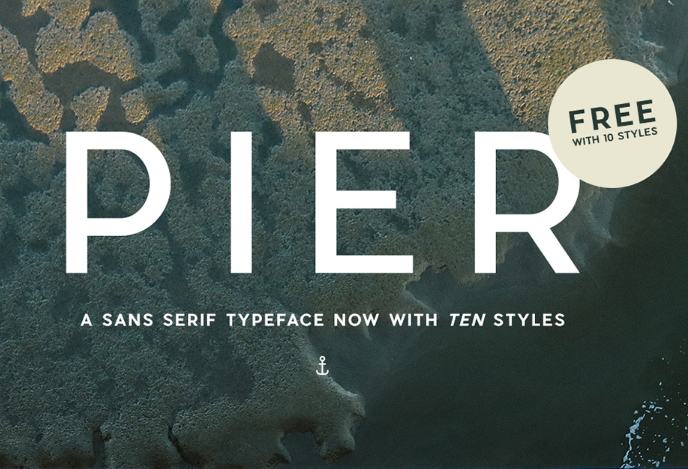
Pier Sans Font Family
As usual, I will introduce to you a new font, if you are implementing a new project, is designed books, or are looking for a collection of fonts, then this will be good for you. Introducing Pier Sans Font Family! A new font families. Pier Sans was designed by Mathieu Desjardins. Pier is a modern and structured typography. The idea was to create a slightly off geometric font that would look as good big or very small. It was made to fit your everyday designs and text needs.